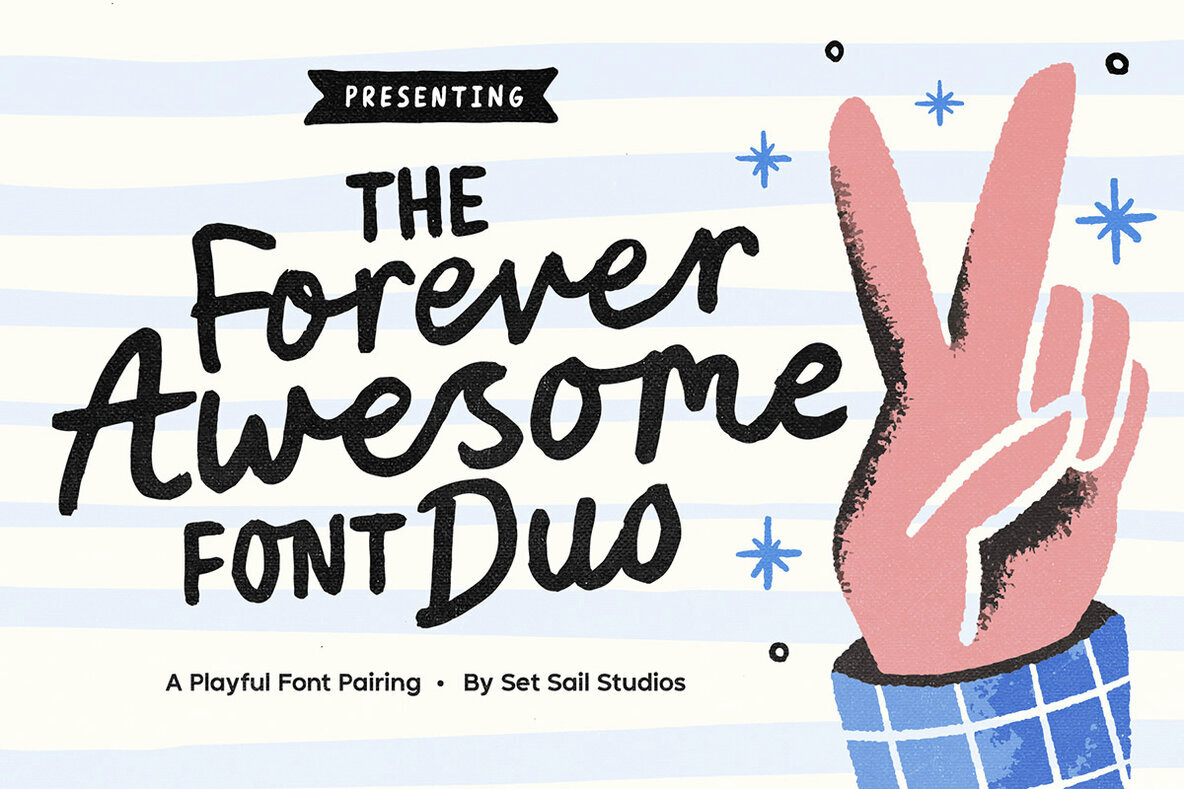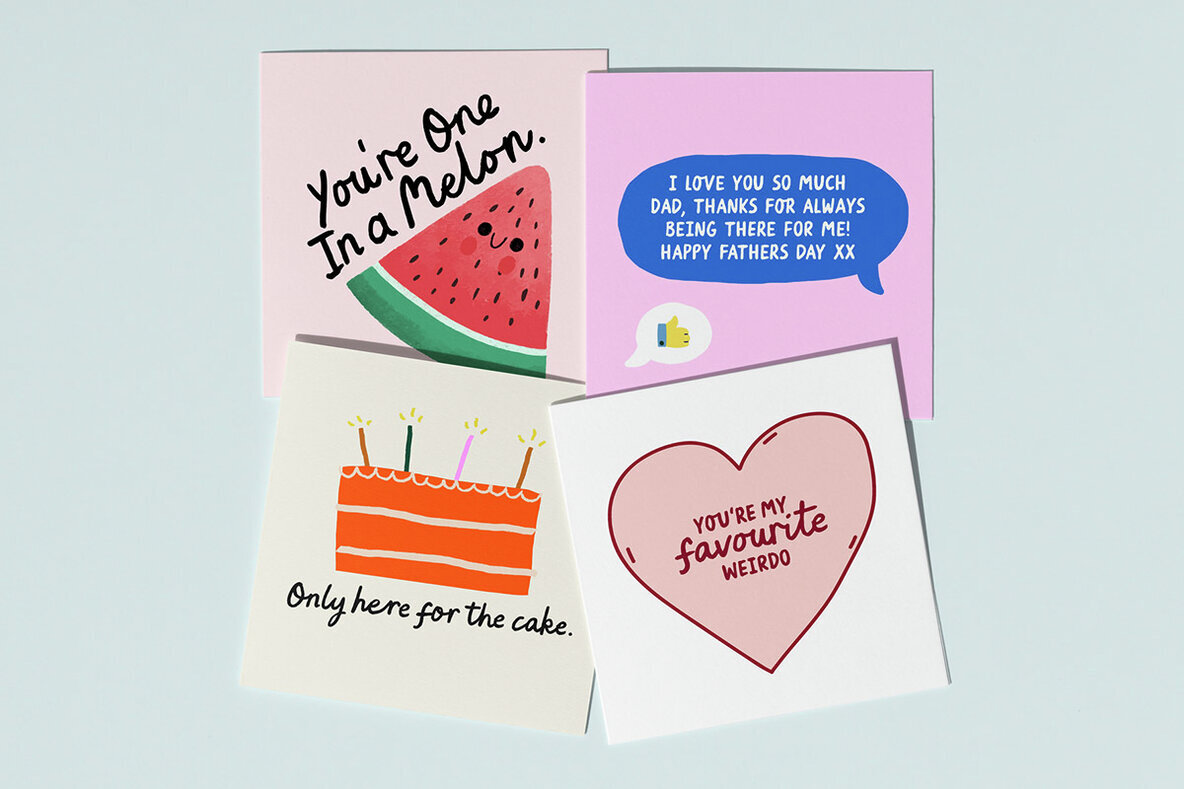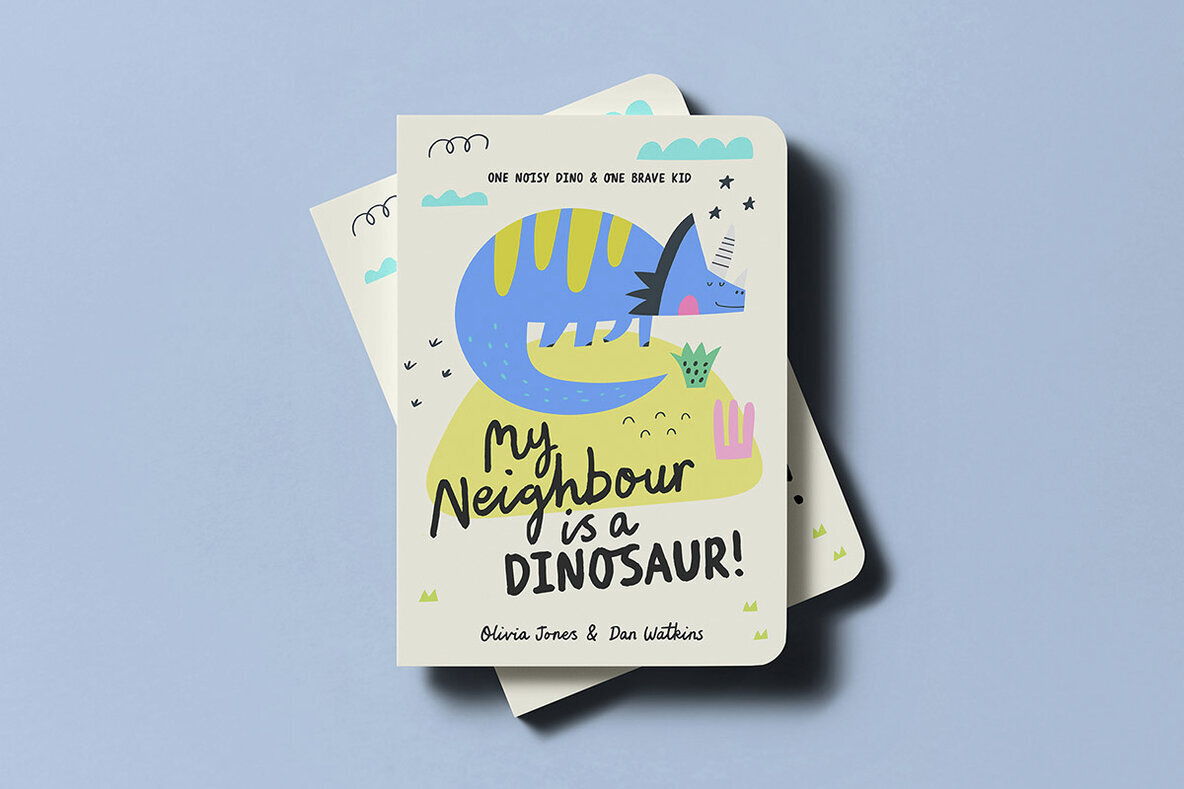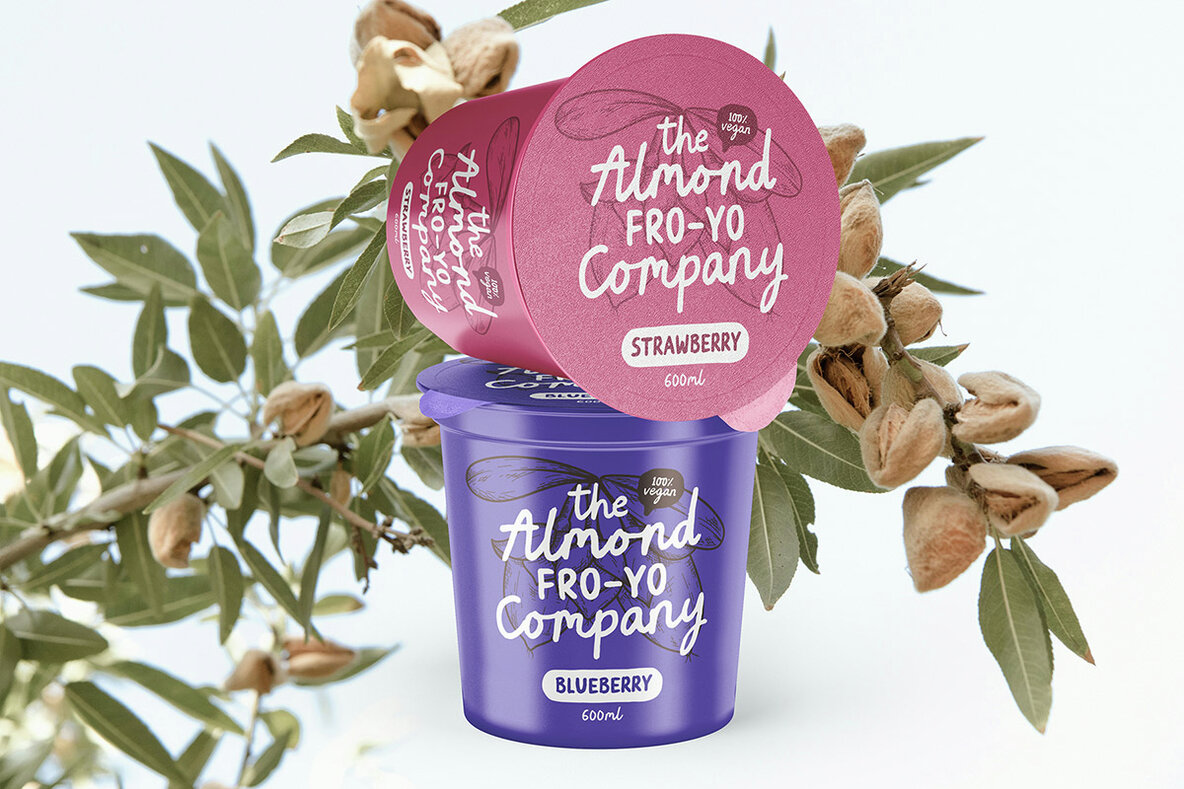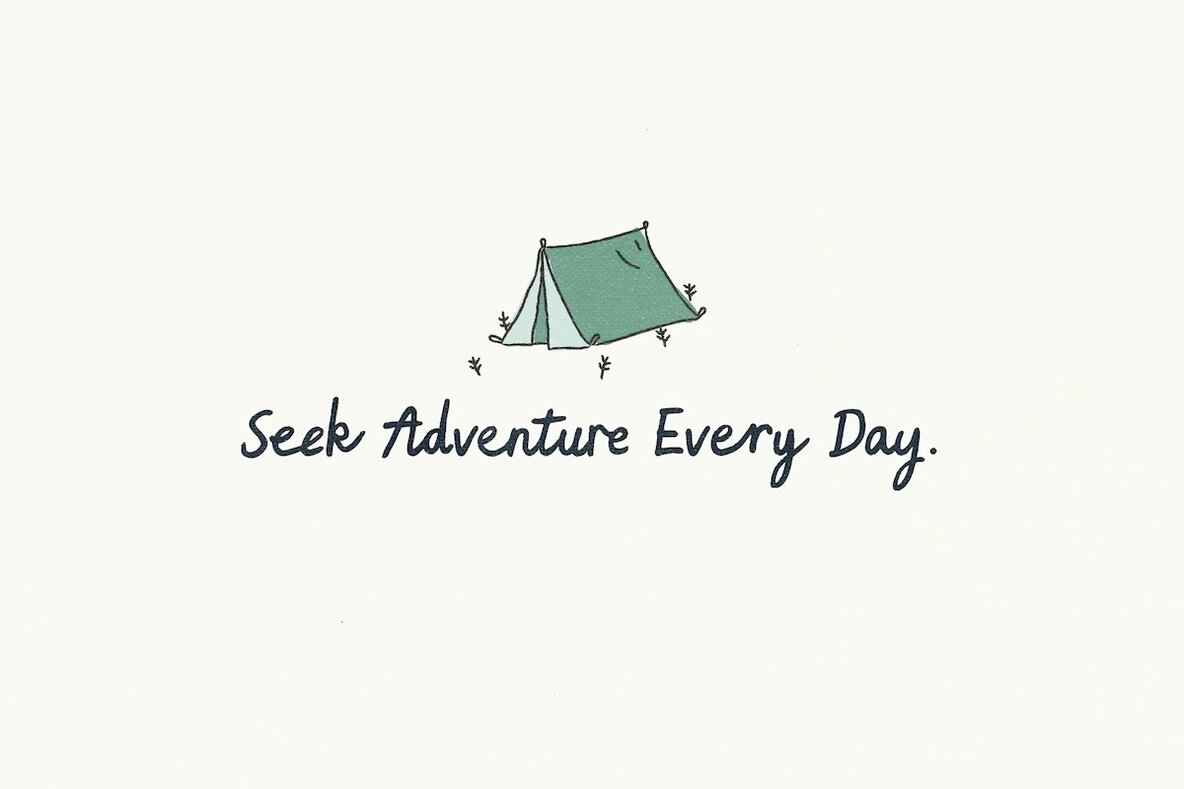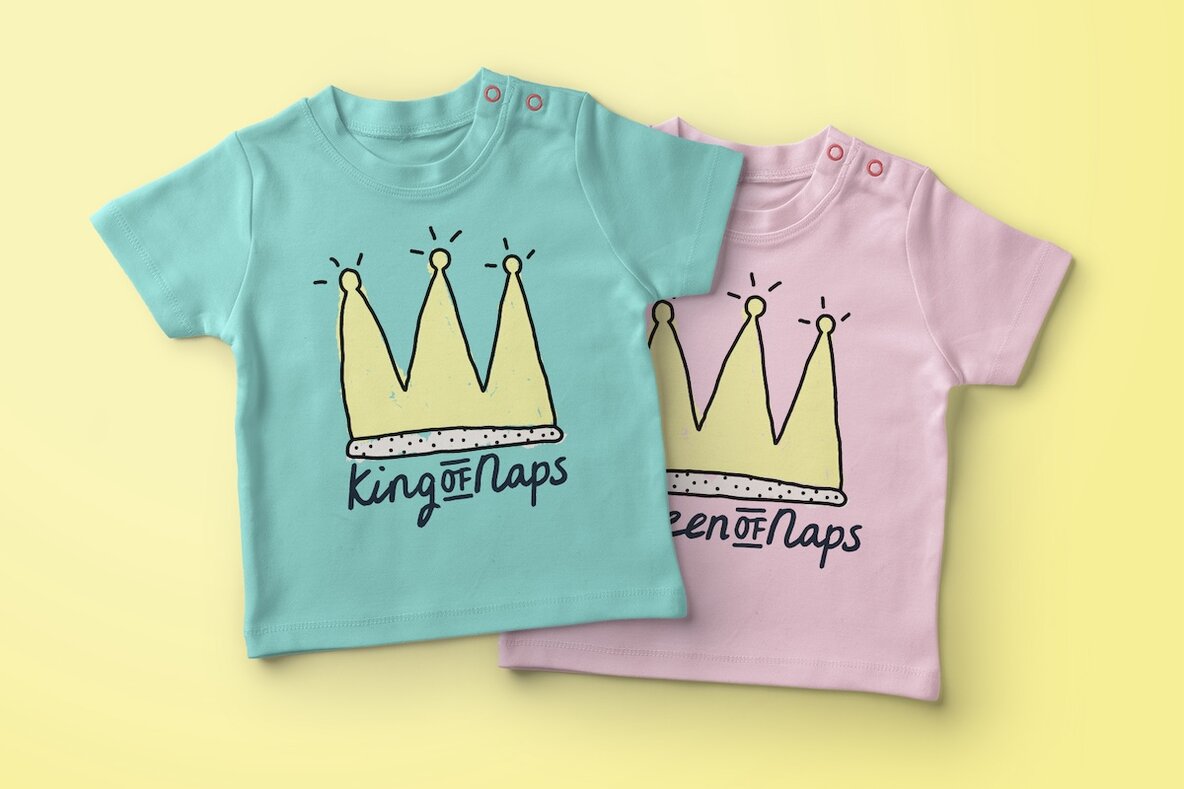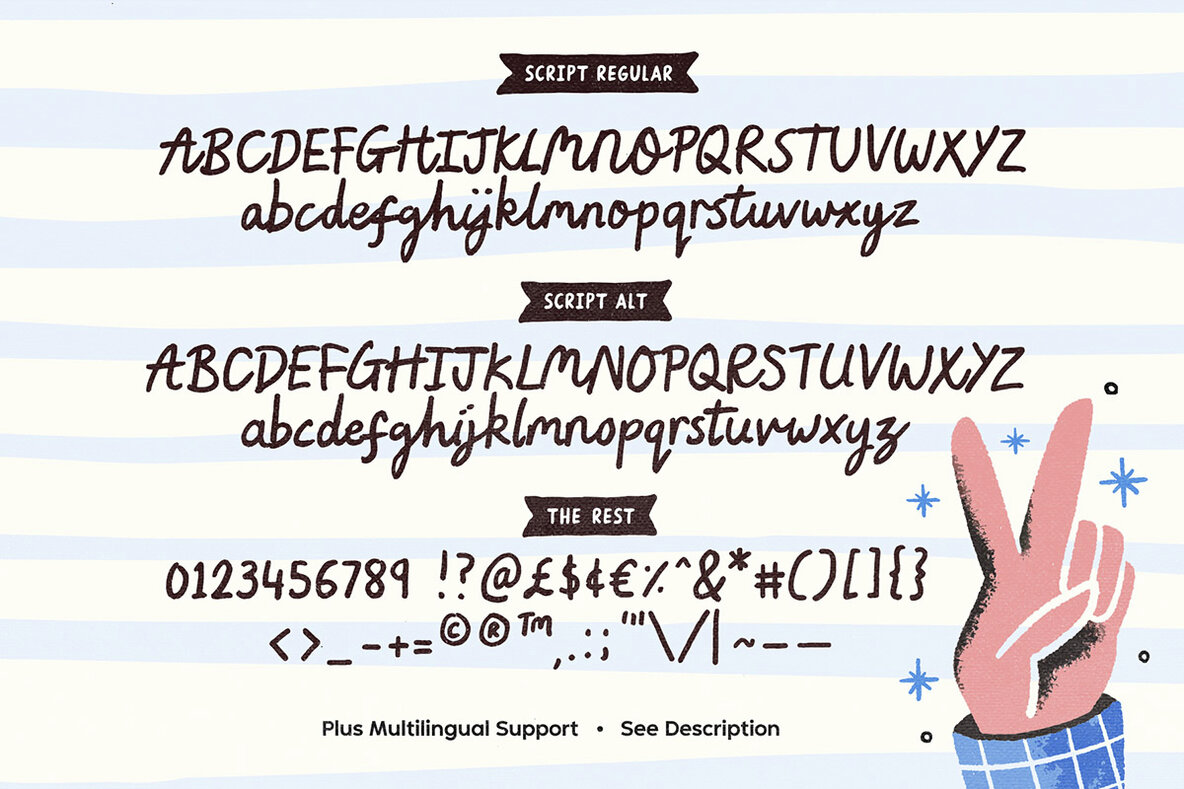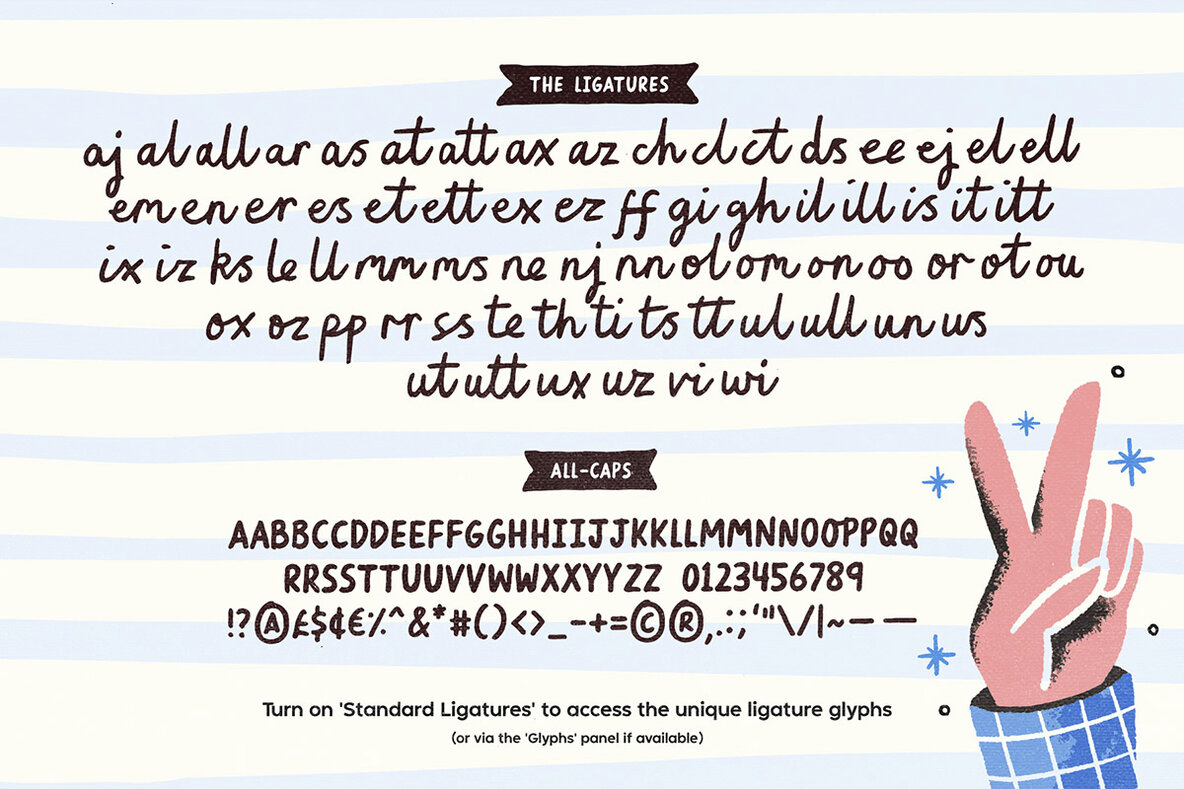
Forever Awesome Font Duo
The Forever Awesome Font Duo presents a joyful blend of hand-drawn fonts that emulate a lively, imperfect, and friendly aesthetic. This charming collection is an ideal choice for personal-feel projects such as logo design, quotes, packaging, and kid-friendly products, as well as greeting cards that call for a touch of fun. Make use of standard ligatures by simply enabling them for automatic generation. Access all available ligatures through the Glyphs panel, with the fonts being PUA encoded. This allows for character accessibility from Font Book or Character Map, broadening compatibility with diverse software environments.Forever Awesome Font Duo: A Playfully Creative Typeface
Diverse Font Set Features
Utilizing Ligatures and Character Support